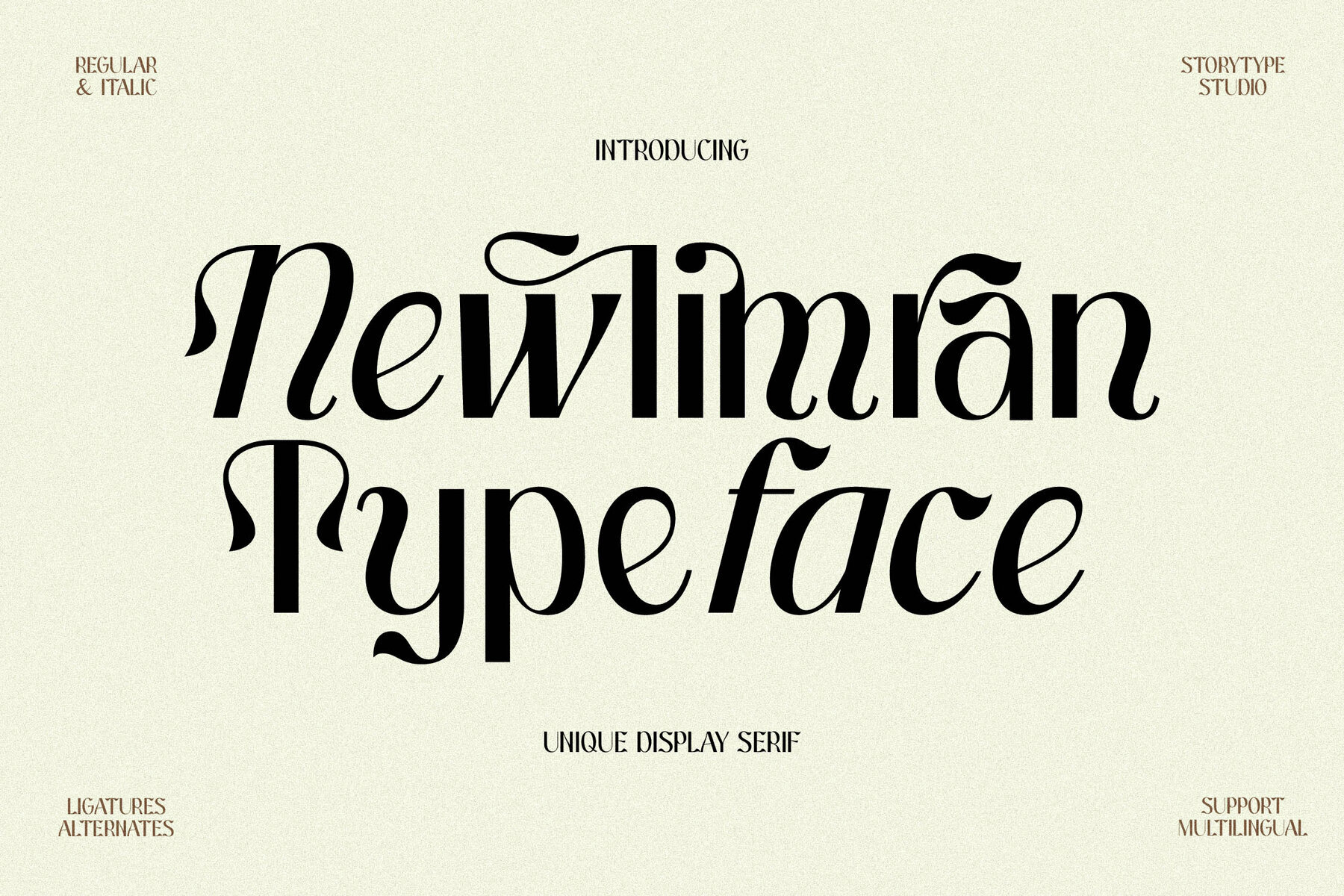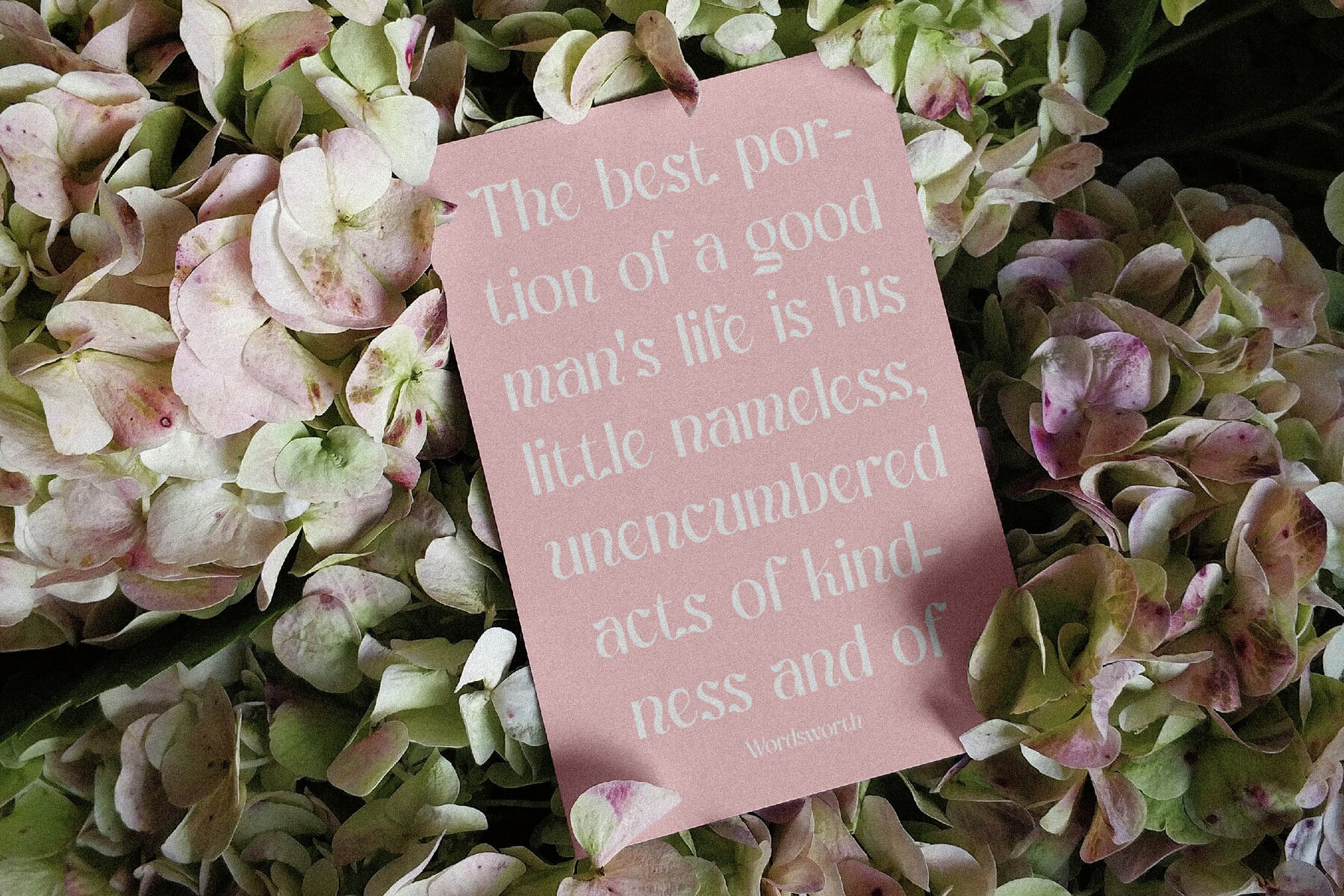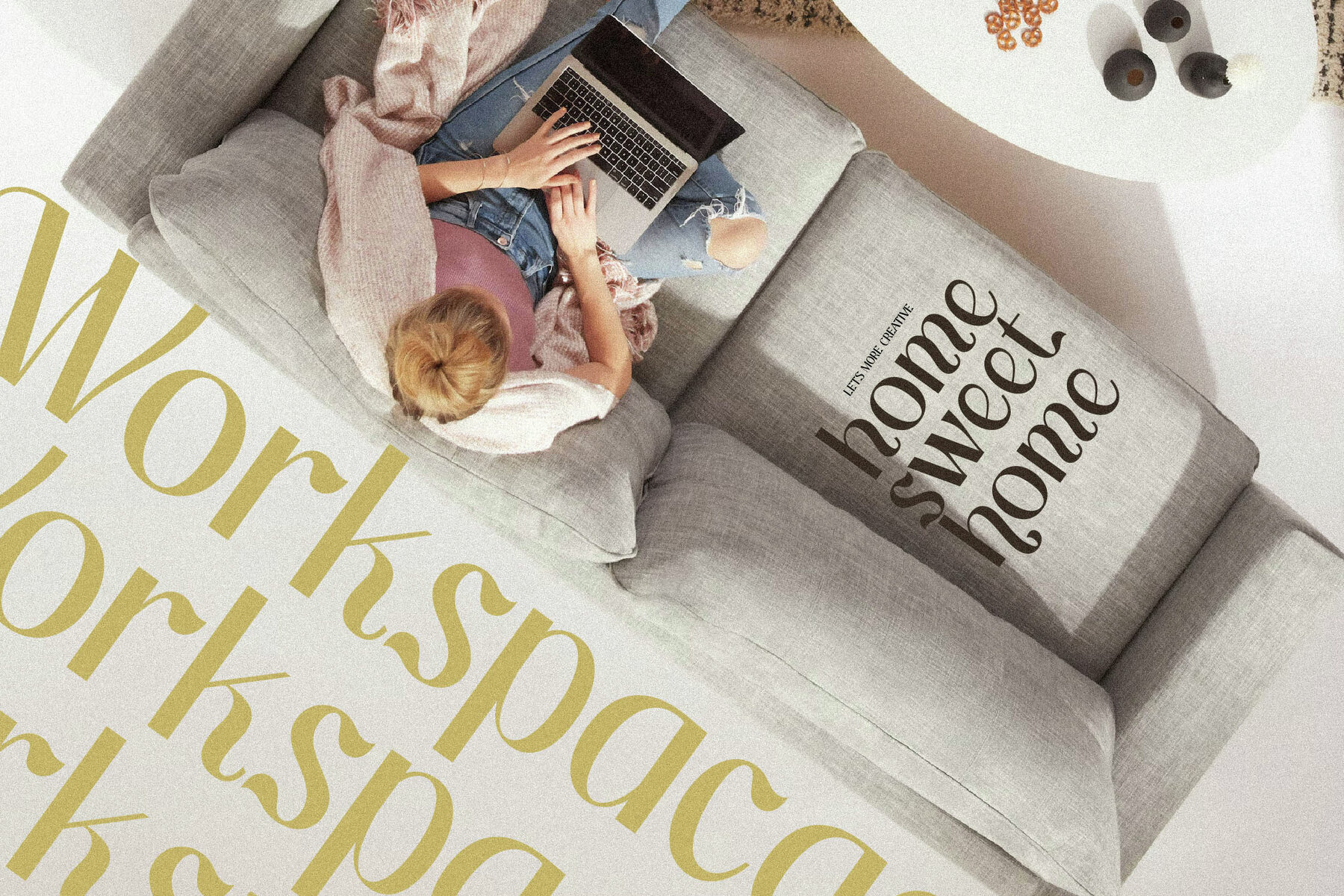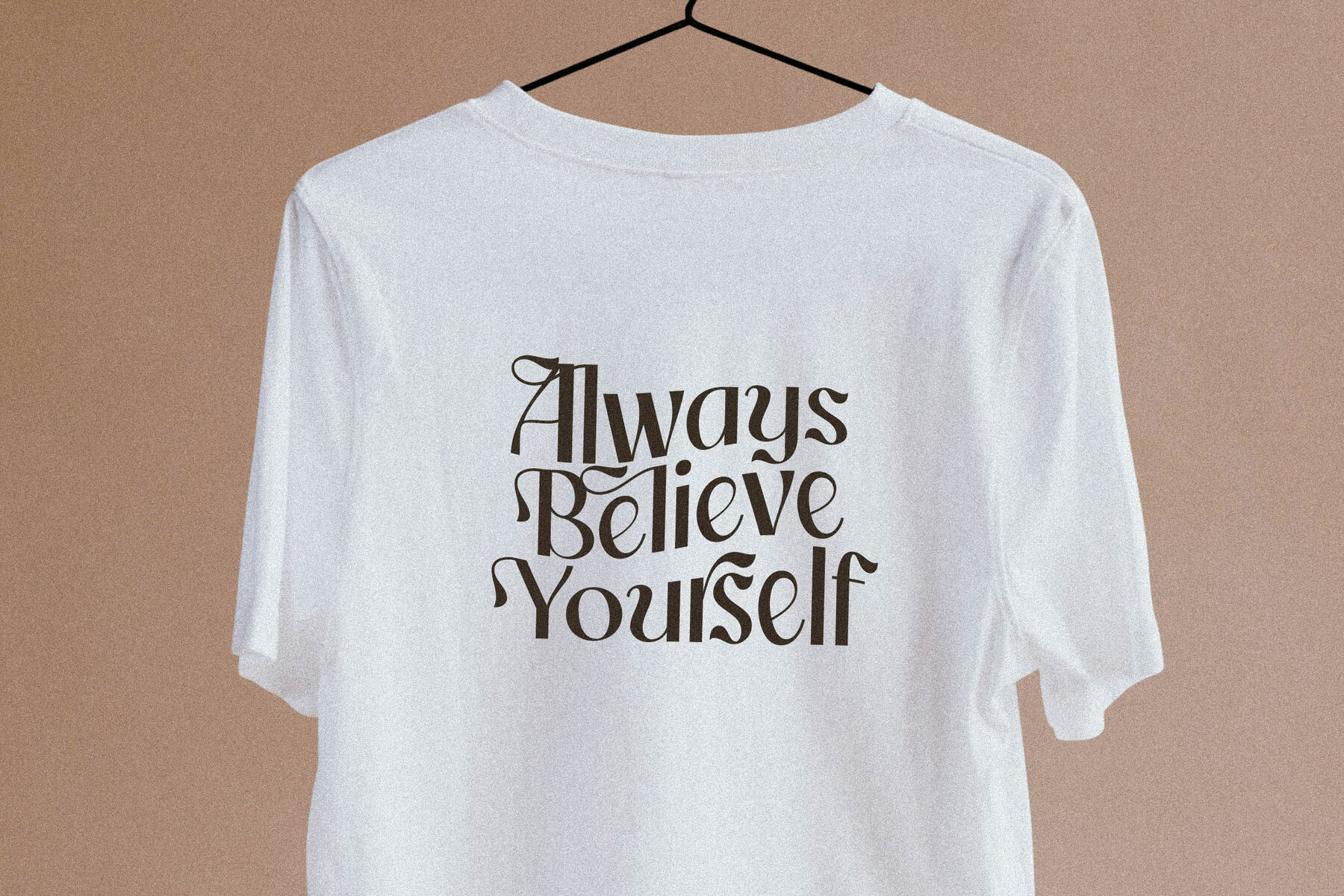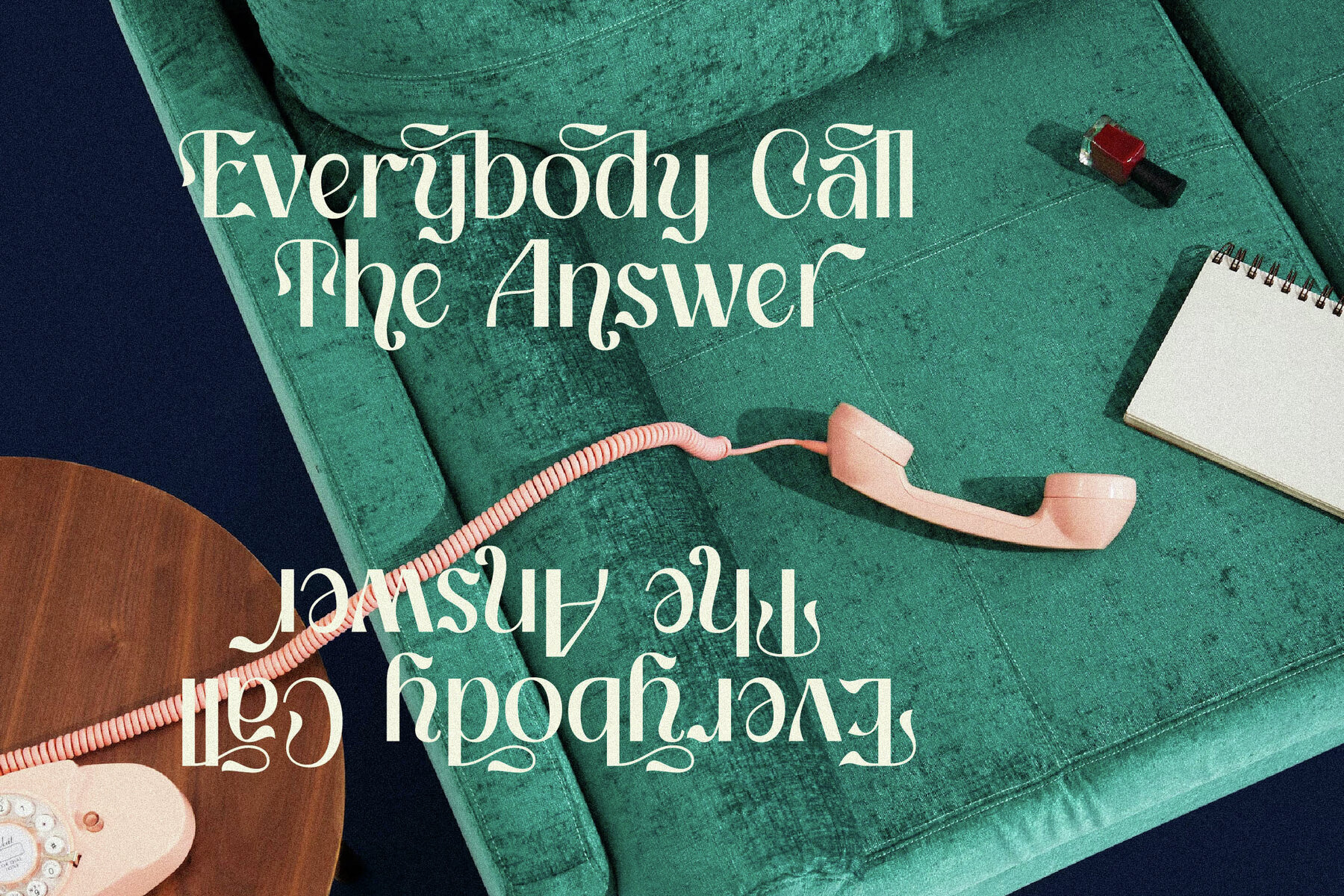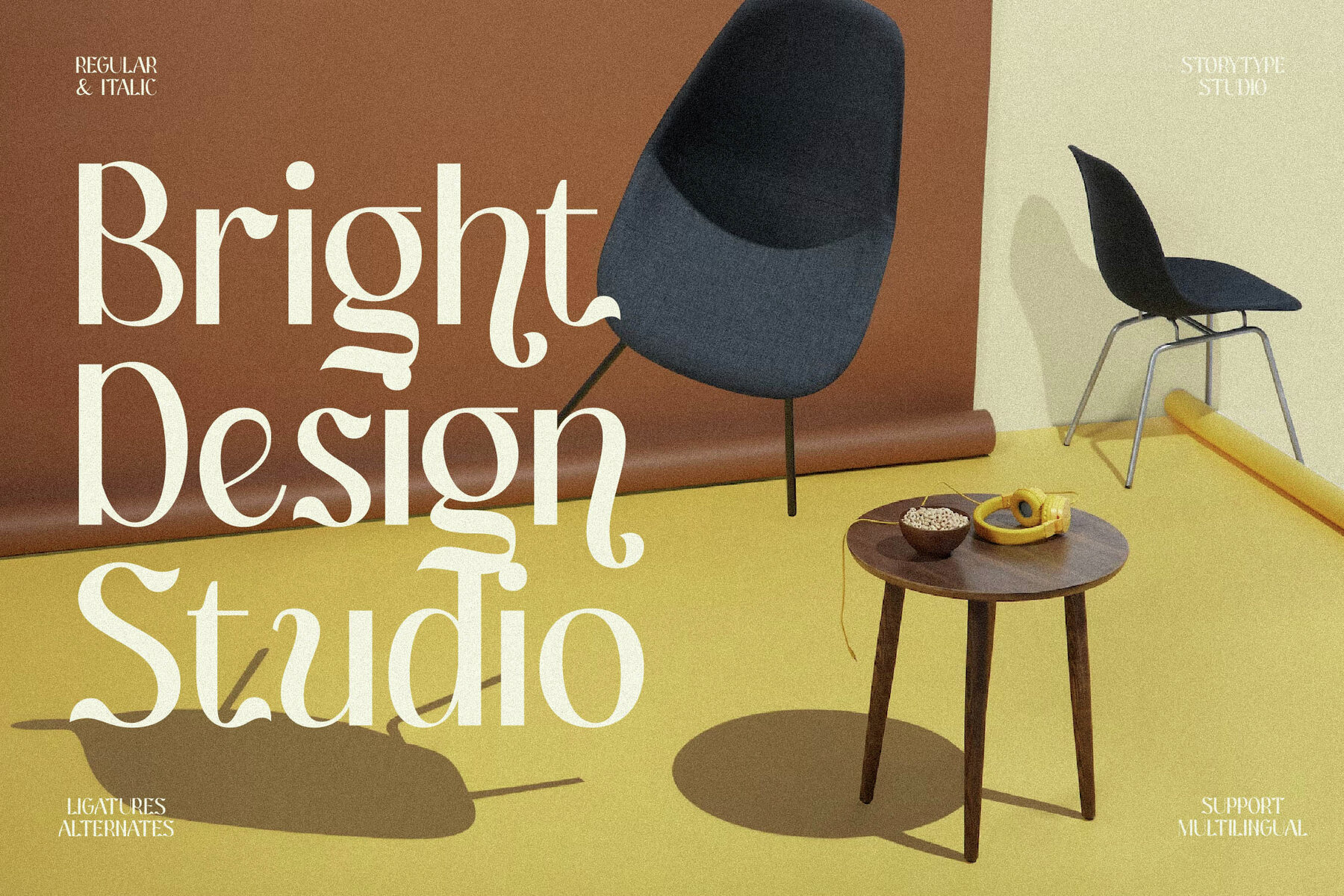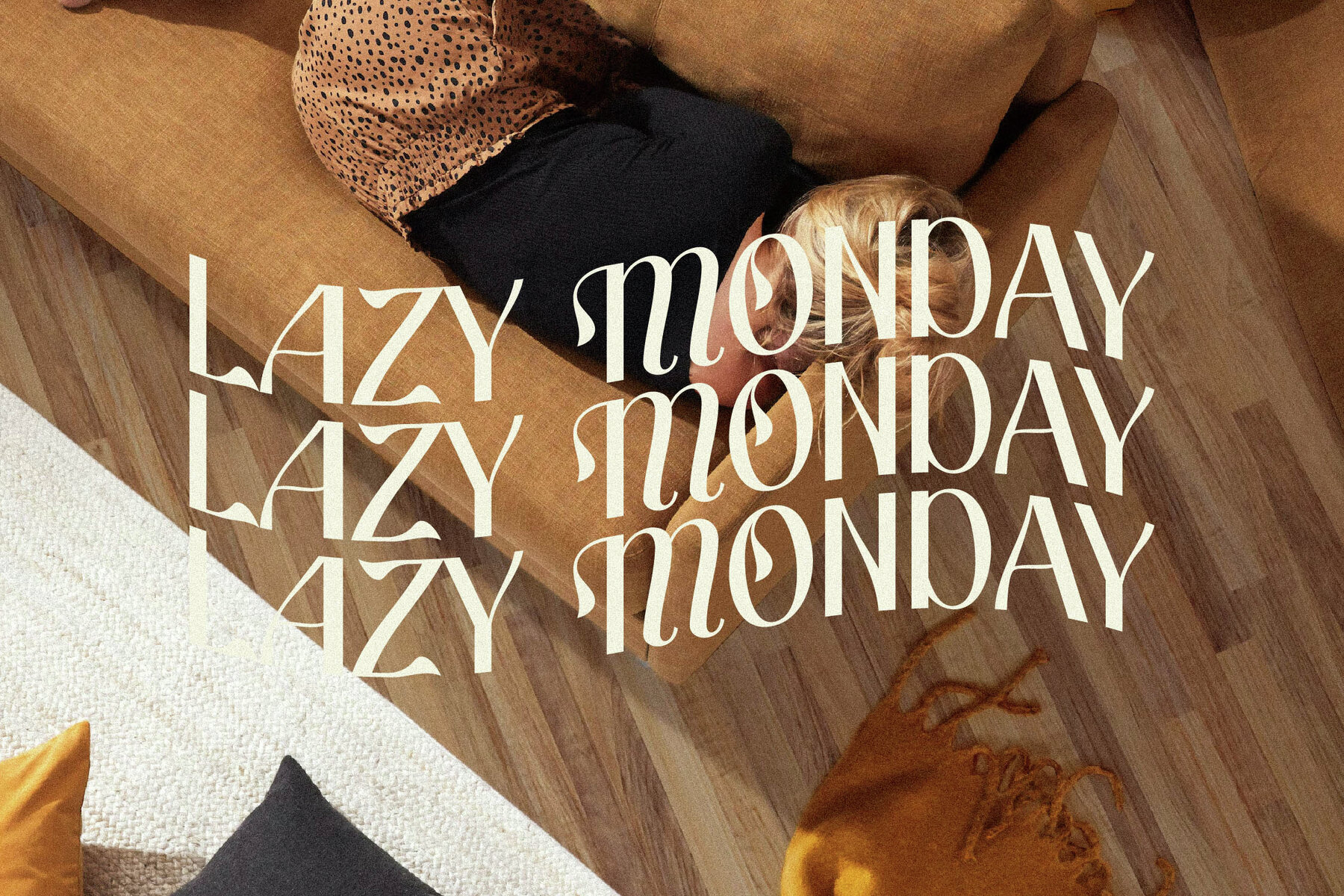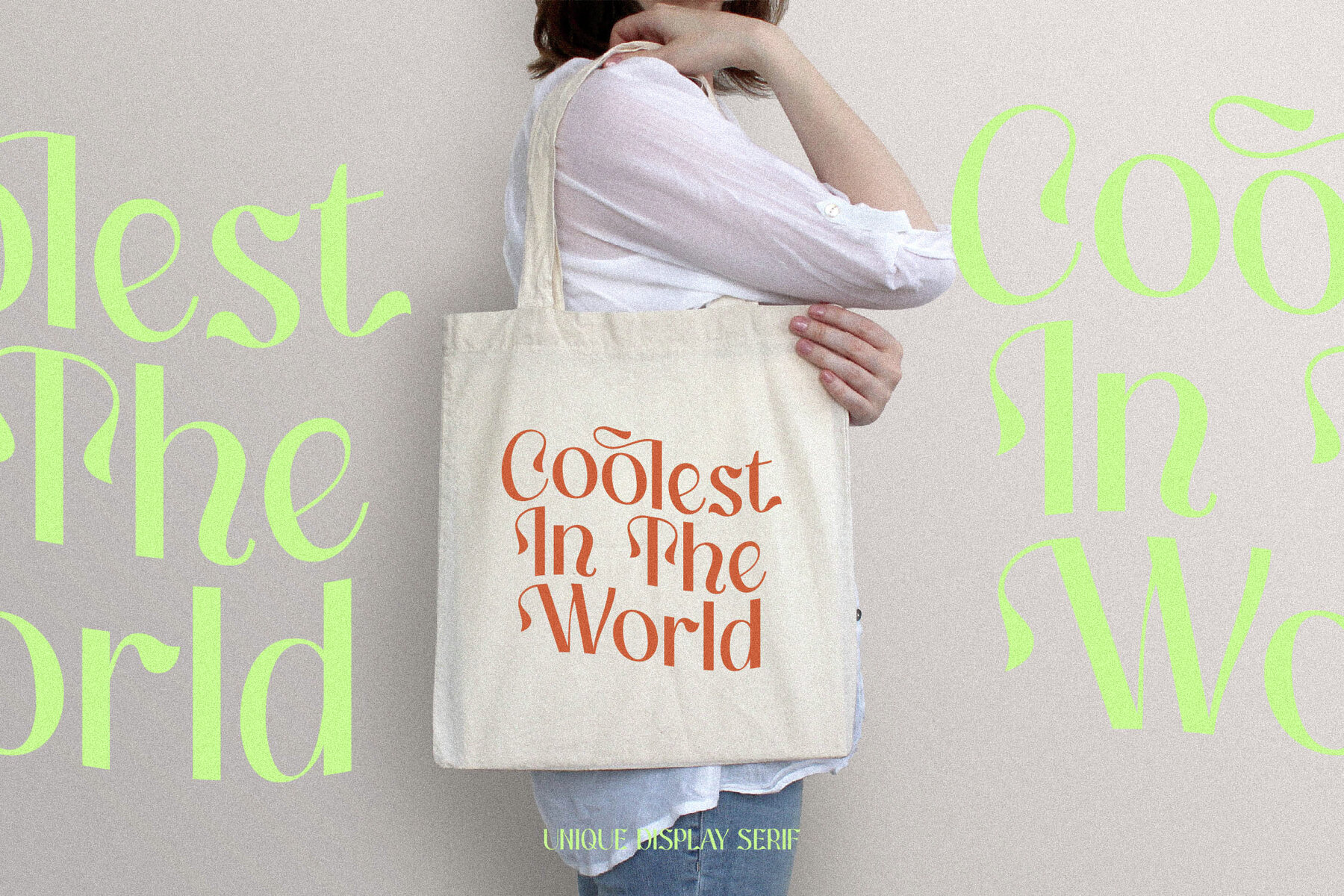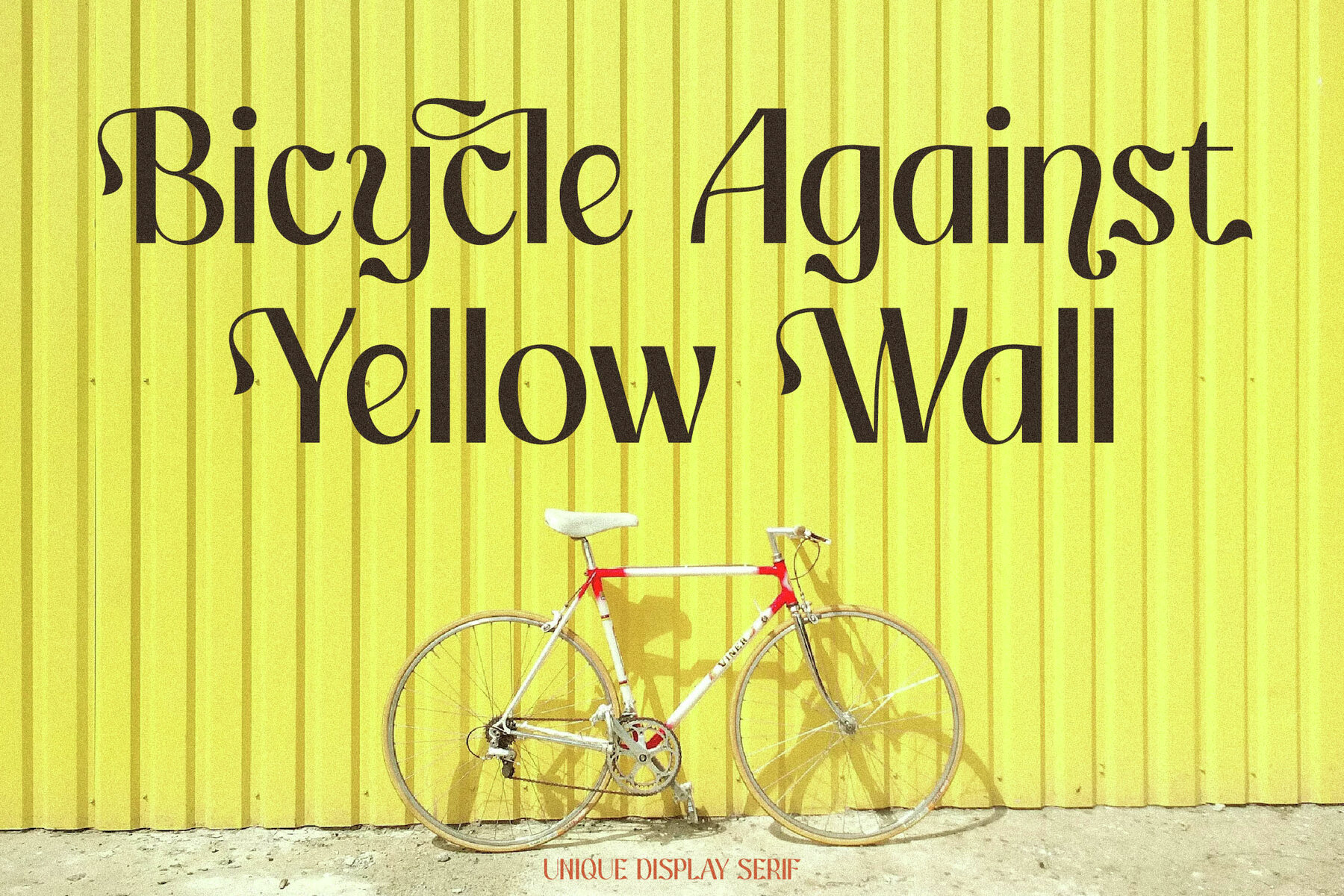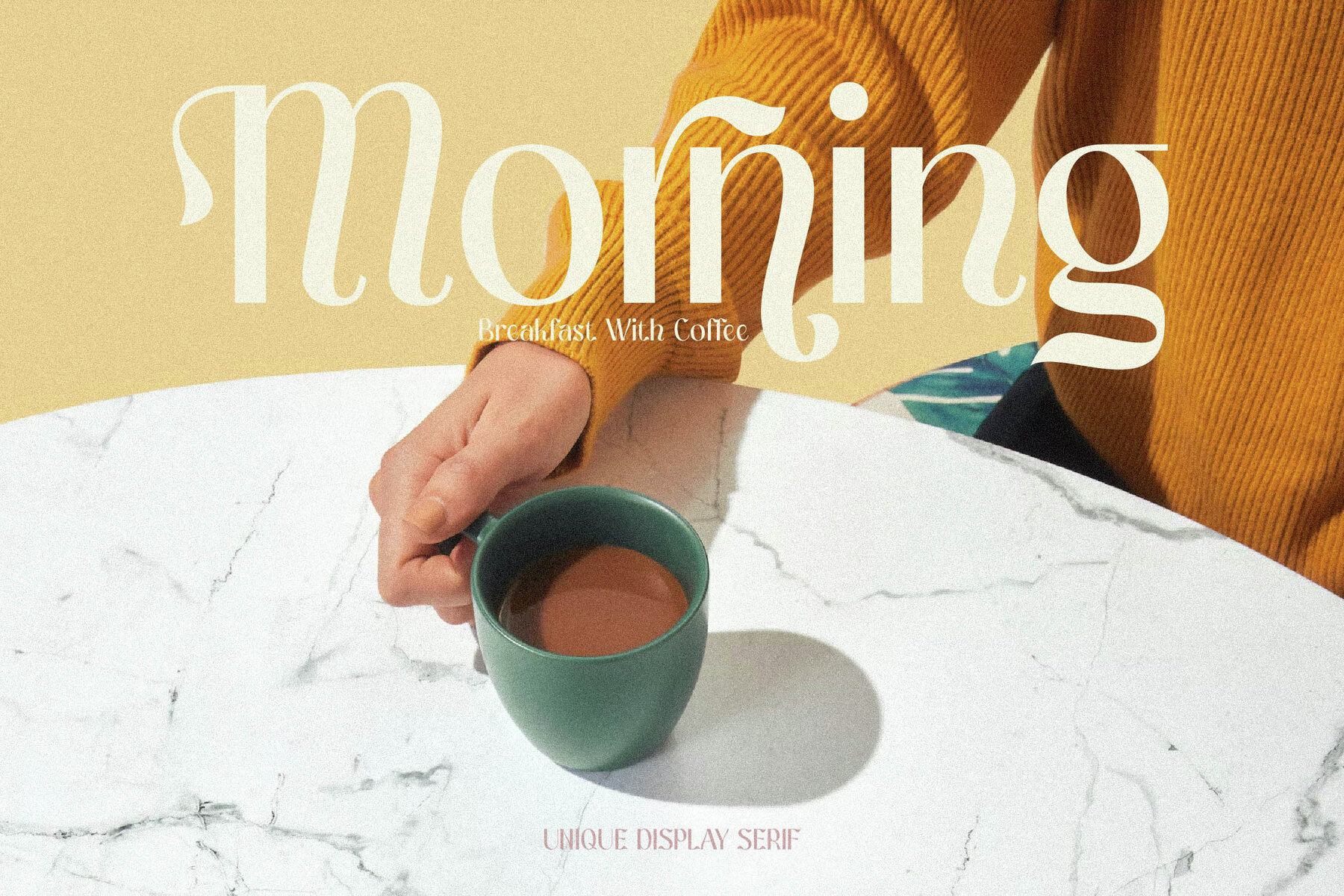
Newlimran Font
Discover the exquisite Newlimran Typeface, a creation by Storytype that blends modernity with classic serif elegance. Its unique style and polished appearance make it the ideal choice for a range of sophisticated applications. Perfect for crafting luxurious logos, designing book or movie titles, and defining the identity of fashion brands, magazines, and more, this typeface is your go-to for achieving a refined aesthetic. Features:Newlimran Typeface: Modern Elegance in Serif